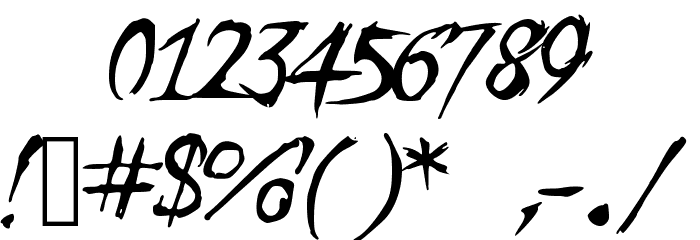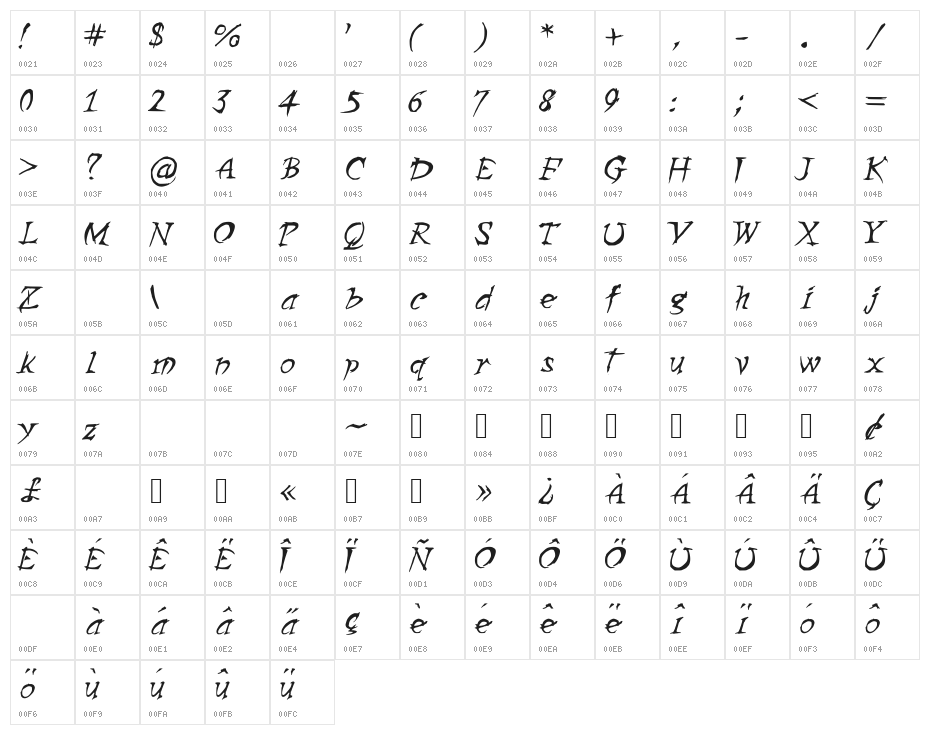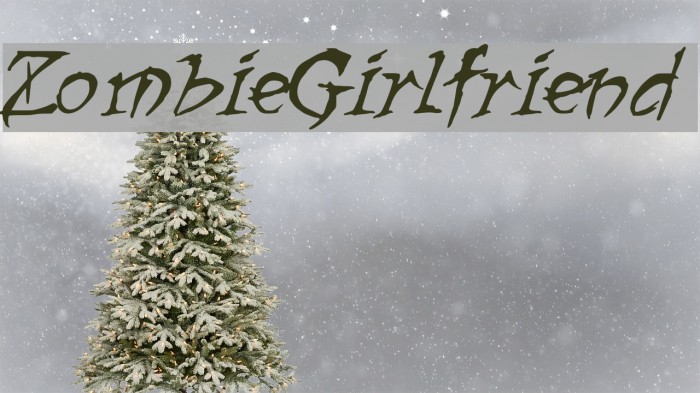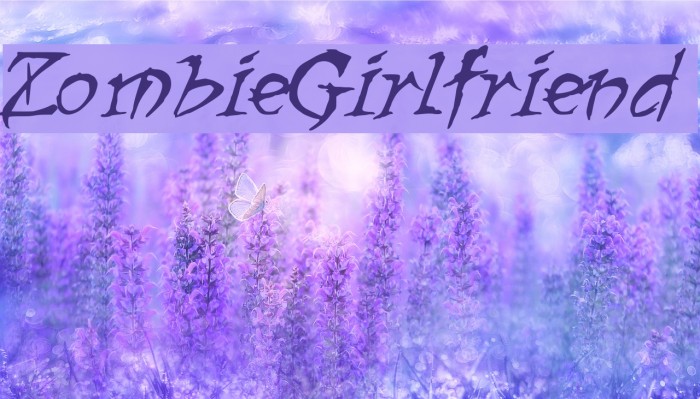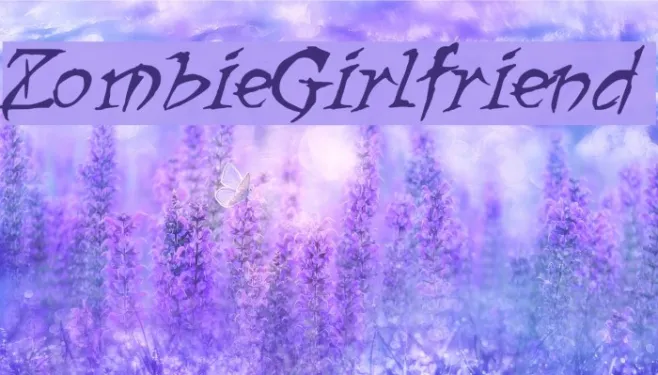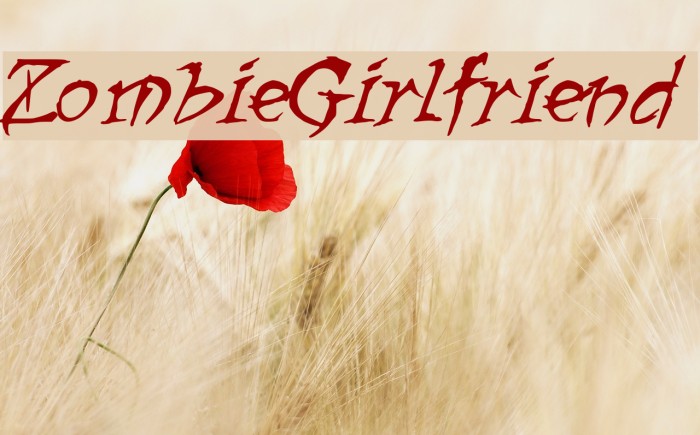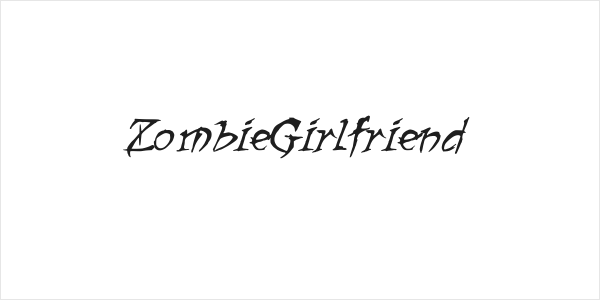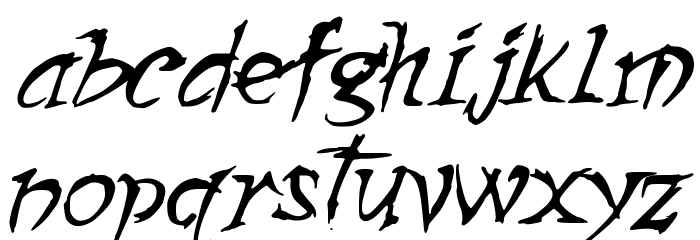
ZombieGirlfriend Font
ZombieGirlfriend Description
This font exudes a chaotic and edgy aesthetic, characterized by its jagged and irregular strokes that mimic the appearance of torn or shredded material. The letters have a dynamic and energetic flow, with sharp angles and varying line thickness that create a sense of movement and intensity. The uppercase and lowercase letters maintain a consistent style, while the numbers and special characters integrate seamlessly into the overall design. This font's unique and striking appearance makes it ideal for projects that require a bold and unconventional look.
| Proposed Projects | Ideal for horror-themed posters, edgy branding, album covers, and Halloween event promotions. |